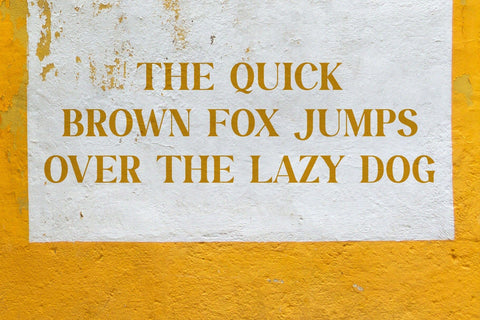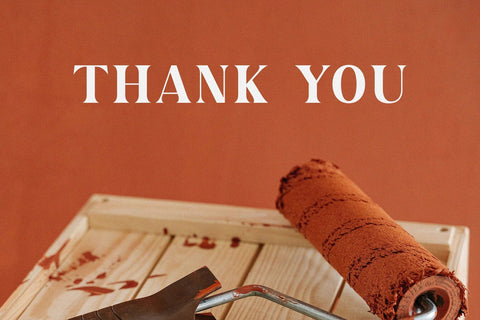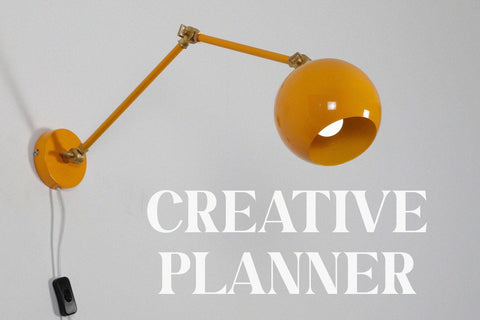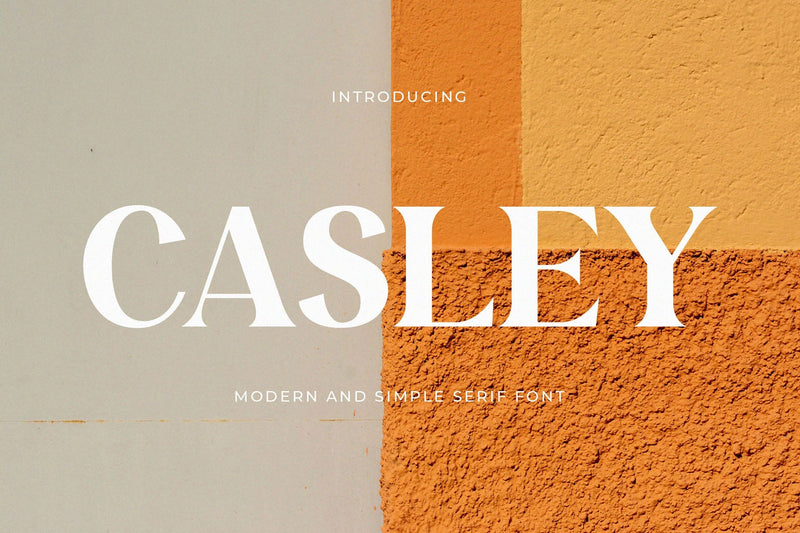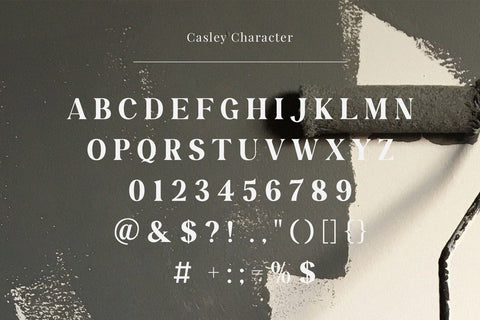
Casley - Modern Serif Font
Introducing our new Casley, modern serif font with elegant style this is perfect for branding, logos, invitation, magazines, product packaging and more.